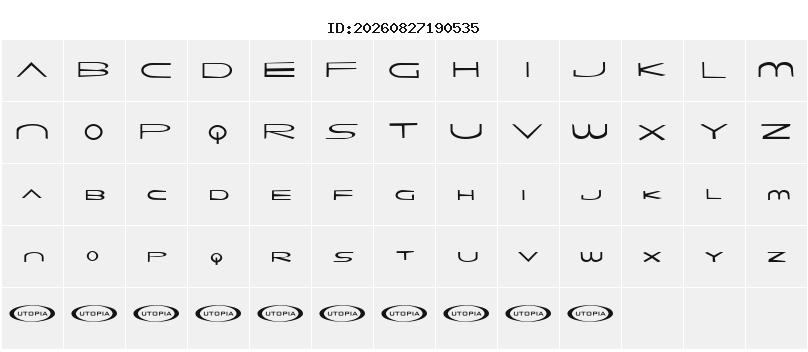
• Font Name: the monkey's ate my soul
About the monkey's ate my soul.ttf
the monkey's ate my soul.ttf is a modern, elegant sans-serif font designed for ultimate readability and visual harmony. Perfect for branding, headlines, web design, and print materials.